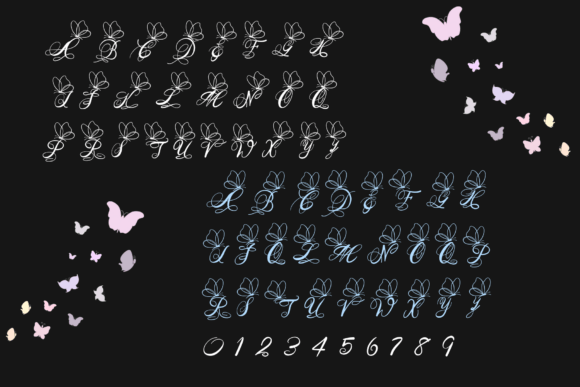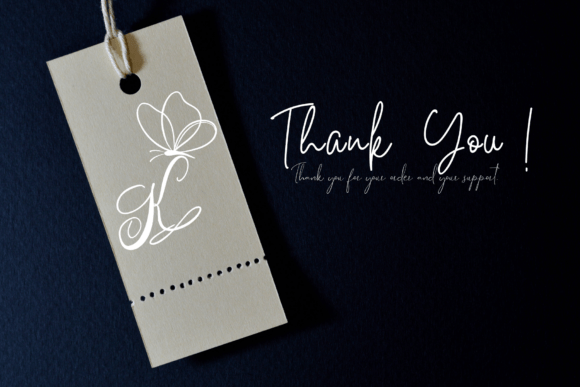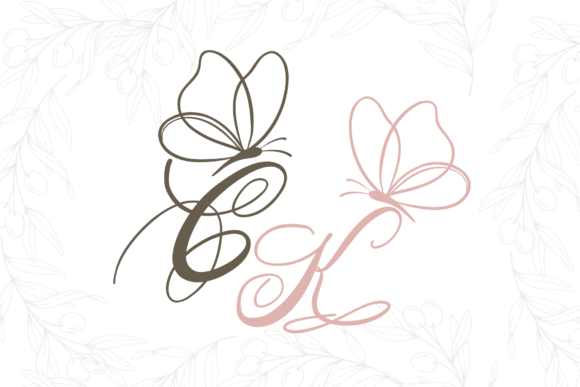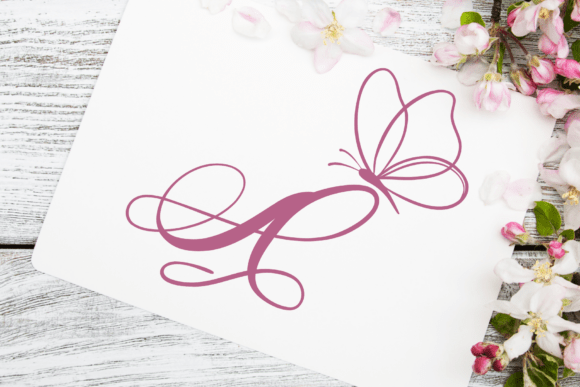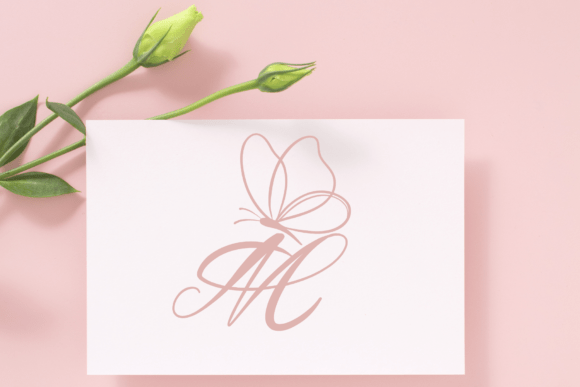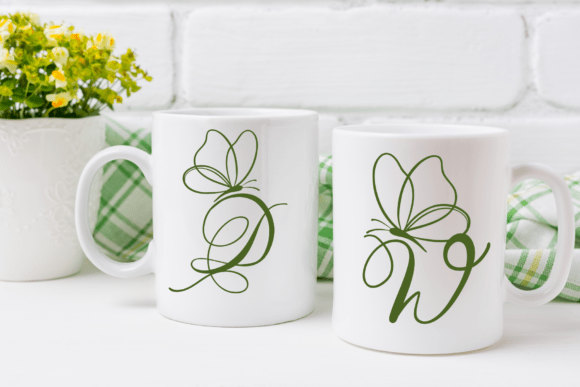
The Delicate Charm of Butterfly Font: A Designer’s Delight
I still remember the time I was working on a project for a client’s birthday card. I had all the design elements ready, but I was stuck on finding the perfect font. I wanted something that would add a touch of elegance and whimsy to the card. That’s when I stumbled upon the Butterfly font. It was love at first sight! 💕
The Butterfly font is a decorative font that has become a staple in my design toolkit. Its delicate and intricate design makes it perfect for a variety of projects, from taking notes to creating stunning visual content. In this article, I’ll share my experience with the Butterfly font, its features, and how to use it on different platforms.
An Honest Review of Butterfly Font
What I Love About Butterfly Font ✨
- 💖 Delicate and intricate design that adds a touch of elegance to any project
- ✅ Highly versatile and can be used for a variety of design projects, from notes to social media posts
- 🎨 Beautifully crafted to make your designs stand out
- 🤝 Easy to read and understand, making it perfect for body text
While the Butterfly font is a stunning addition to any design project, there are a few quirks to keep in mind:
- 🤔 May not be suitable for very small font sizes, as some details may get lost
- ⚠️ Limited availability of stylistic alternates, which may limit design flexibility
The Backstory of Butterfly Font
The Butterfly font was designed by a talented typographer who wanted to create a font that would capture the delicate beauty of butterflies. The font was inspired by the intricate patterns and colors of butterfly wings, and it’s perfect for designs that require a touch of elegance and whimsy.
| Author | Sirinart |
| What is the Butterfly font best used for? | The Butterfly font is best used for designs that require a touch of elegance and whimsy, such as greeting cards, invitations, or social media posts. |
| Is the Butterfly font suitable for body text? | Yes, the Butterfly font is easy to read and understand, making it suitable for body text. However, it’s recommended to use a larger font size to ensure optimal readability. |